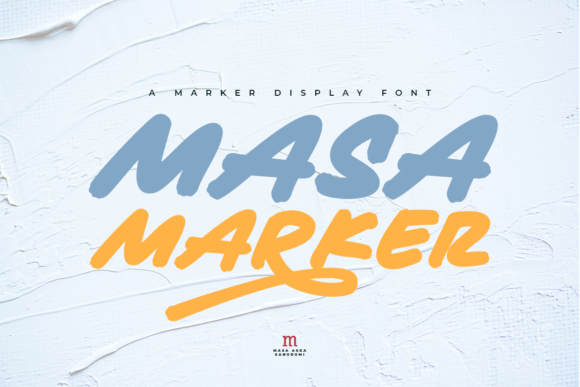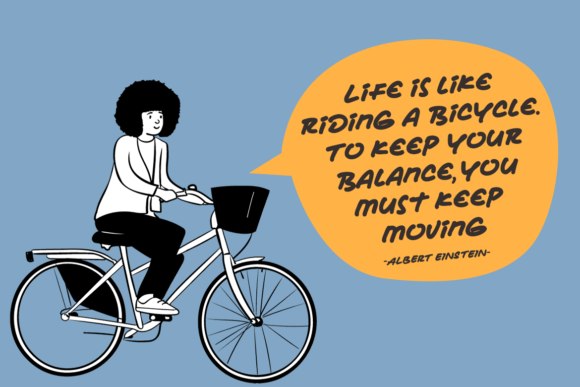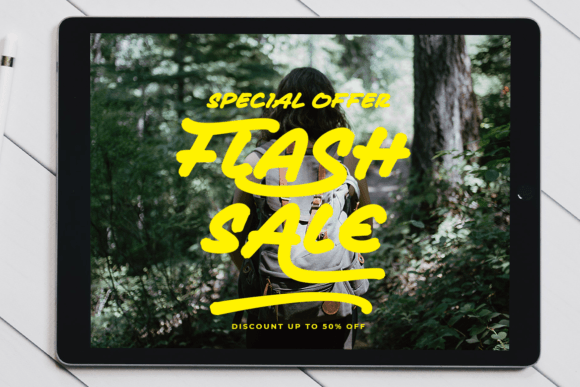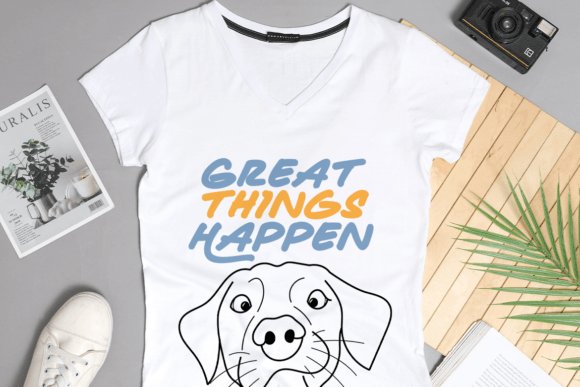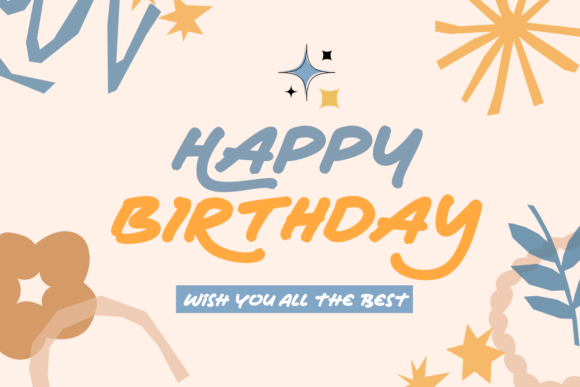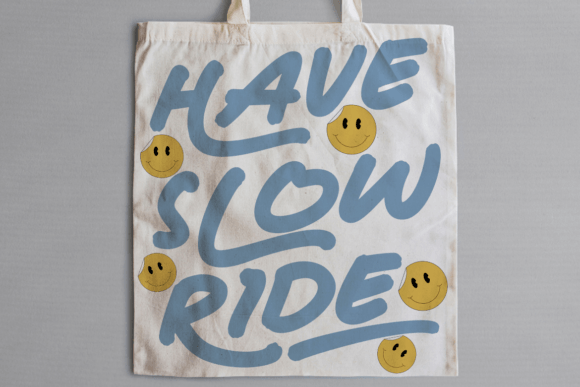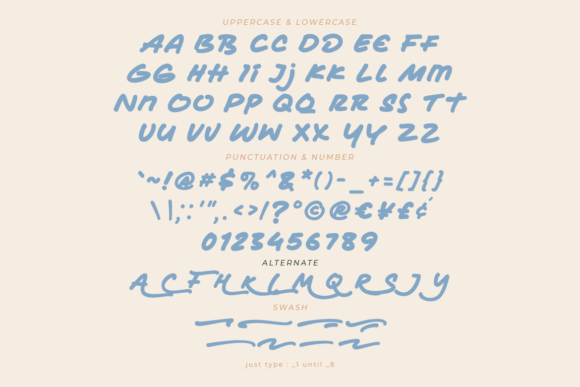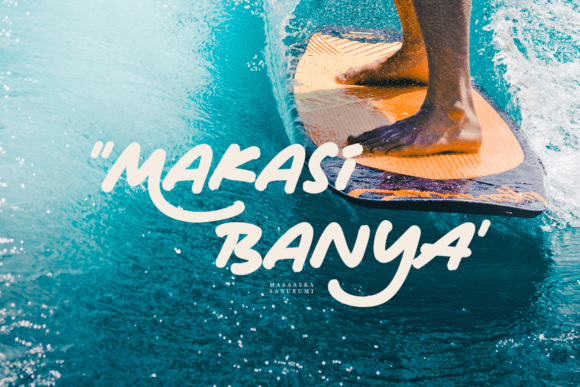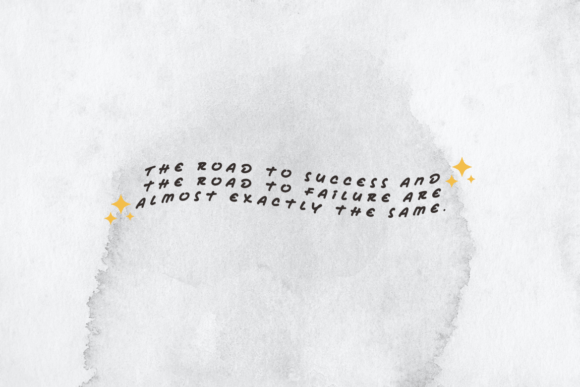
Masa Marker Font
About Masa Marker Font
Masa Marker font is a versatile, stylish, and playful handwritten script designed to bring a fresh and clean look to a wide variety of creative projects. When you download Masa Marker font, you get a unique typeface that enhances greeting cards, headlines, invitations, social media posts, and much more.
Stylish and Playful Script
Masa Marker stands out with its lively and fun character, giving your designs a playful yet polished feel. Its handwritten style makes every letter feel personal and authentic, perfect for projects that need a warm and approachable vibe. The font balances casual charm with neat lines, making it easy to read while retaining personality.
Versatility for Any Design
This font adapts seamlessly to many applications. Whether you’re designing greeting cards, eye-catching headlines, posters, or branding materials, Masa Markerfont will add an exquisite touch. It’s especially ideal for projects that want to communicate creativity, friendliness, and style.
Elevate Your Creative Projects
By choosing to download Masa Markerfont, you bring a fresh energy to your work. Its clean and refined strokes will elevate your designs, making them stand out with effortless charm. Use it to add warmth and professionalism, and watch your creative projects come alive with personality.